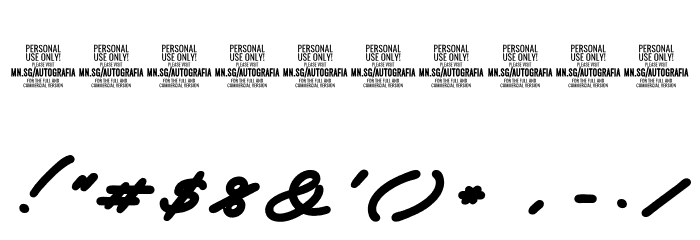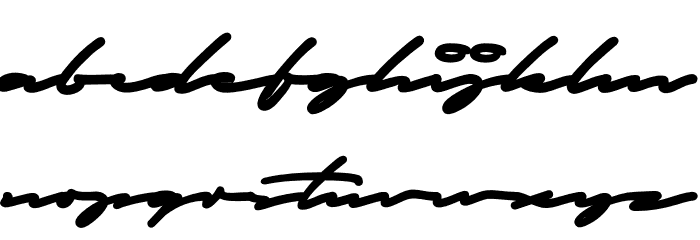
Autografia PERSONAL USE ONLY Black Font
This font features a flowing, cursive style with a handwritten appearance. The letters are connected, creating a seamless and elegant look. The uppercase letters are slightly more elaborate, with flourishes that add a touch of sophistication. The lowercase letters maintain a consistent flow, enhancing readability while preserving the artistic flair. The numbers and special characters are designed to match the overall aesthetic, ensuring a cohesive appearance across all text. This font is ideal for projects that require a personal, artistic touch.
A flowing, cursive font with a handwritten, elegant style.